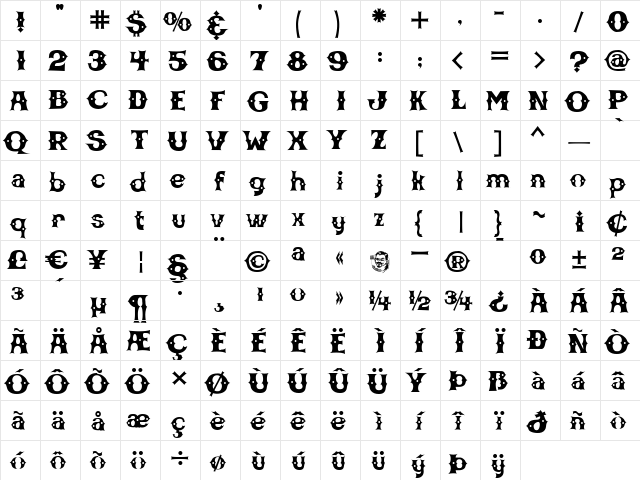
CBGBFont Regular
Design Context for CBGBFont Typeface
CBGBFont is a composed and adaptable typeface that performs quietly and consistently across a wide range of design contexts.
Pro Tip: Use CBGBFont in both headline and body roles to test its range before committing to a single application.